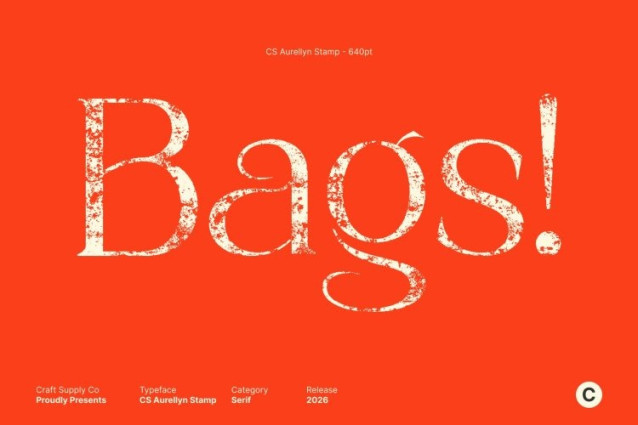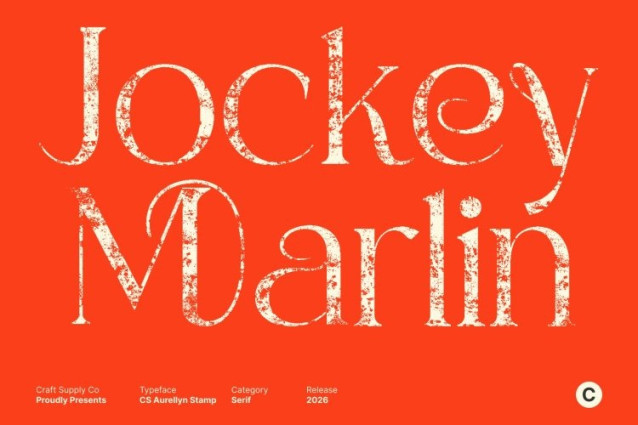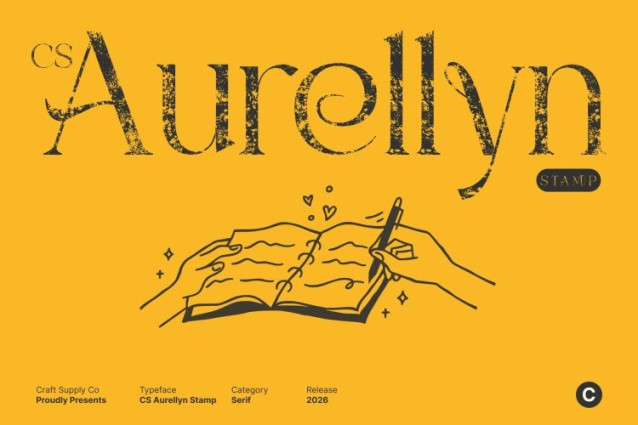
CS Aurellyn Stamp Font
CS Aurellyn Stamp Font This is a modern Art Nouveau serif font defined by smooth, flowing lines and graceful organic forms, enriched with a distinctive stamp texture. This combination merges classic Art Nouveau elegance with a subtle vintage character, resulting in a typeface that feels refined, expressive, and artistically aged. The stamped effect adds depth and tactile charm without diminishing its sophisticated presence.
Organic Curves with Elegant, Handcrafted Expression
Each letterform features soft, natural curves and harmonious connections inspired by traditional Art Nouveau lettering. The flowing shapes create a gentle rhythm and visual balance, while the stamp texture introduces slight imperfections that evoke handcrafted print techniques and old-world artistry. This fusion gives the font a sense of movement, warmth, and personality.
Timeless Beauty with Contemporary Edge
Blending decorative elegance with modern clarity, feels both timeless and current. The vintage stamp detail enhances its artistic appeal, adding character and authenticity while keeping the overall look clean and fashionable. This balance makes the font suitable for both classic-inspired and contemporary design concepts.
Perfect for Luxury, Editorial, and Artistic Branding
Ideal for editorials, luxury branding, fashion campaigns, packaging, and expressive display designs, shines in projects that value elegance with character. Its Art Nouveau-inspired forms combined with stamped texture make it perfect for logos, headlines, and visuals that demand beauty, refinement, and a touch of vintage soul.